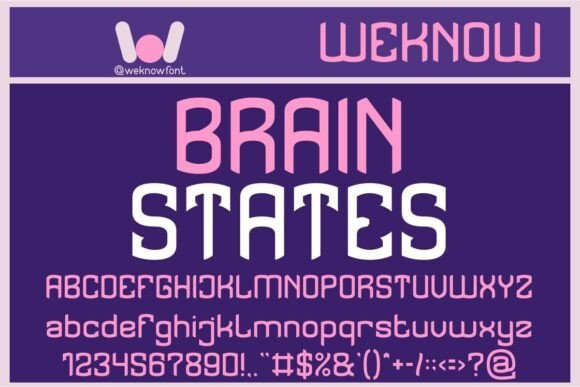
Introduction to Brain States Font
Introducing β€˜Brain States,’ a contemporary gothic-inspired display font offering a mix of power, dominance, and style.
This unique font mirrors the strength of a shark and the mightiness of a wolf, exhibiting sharp edges and fancy undertones Perfect for a myriad of applications, from crafting striking headlines and brand identities to accessorizing logos and logotypes.